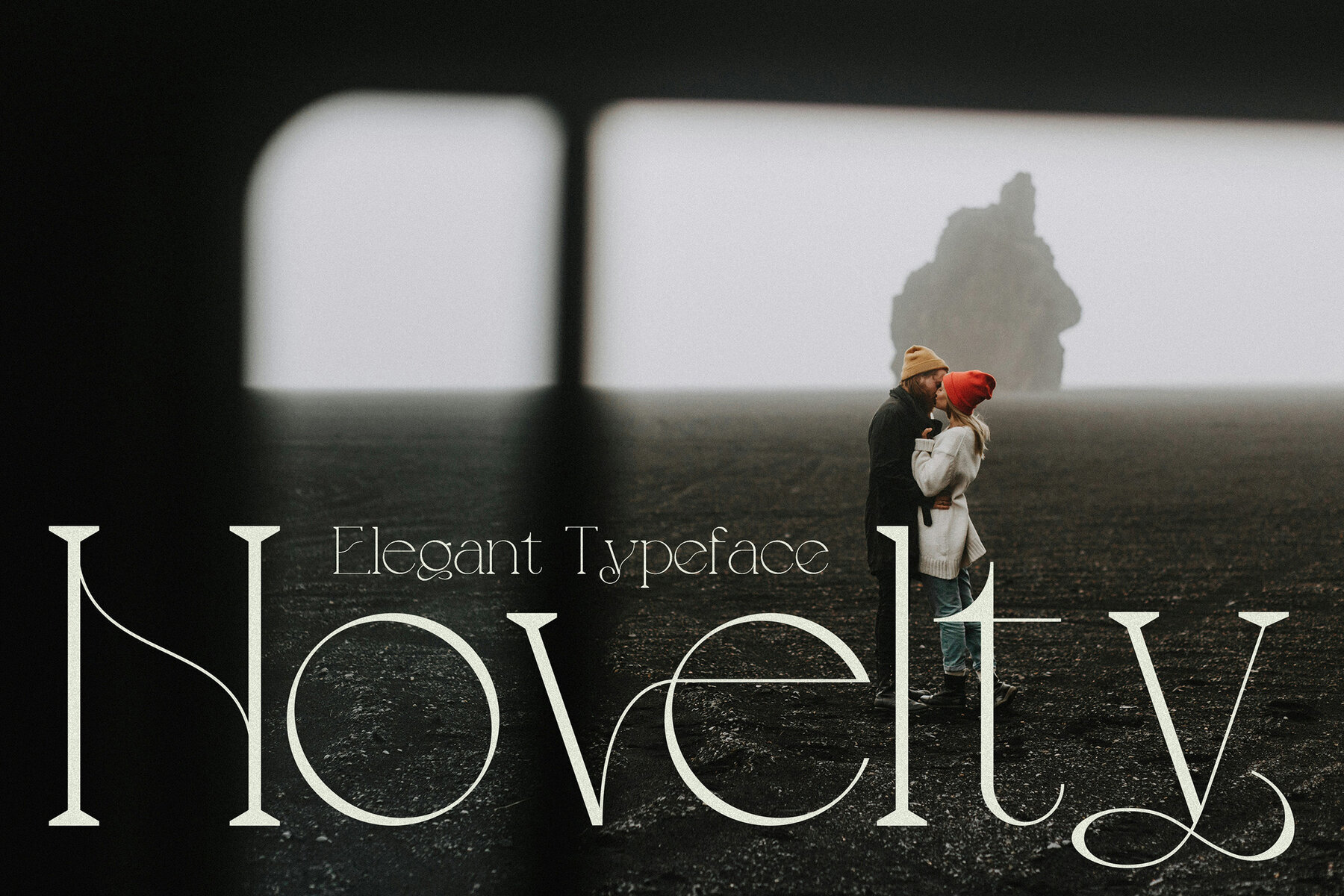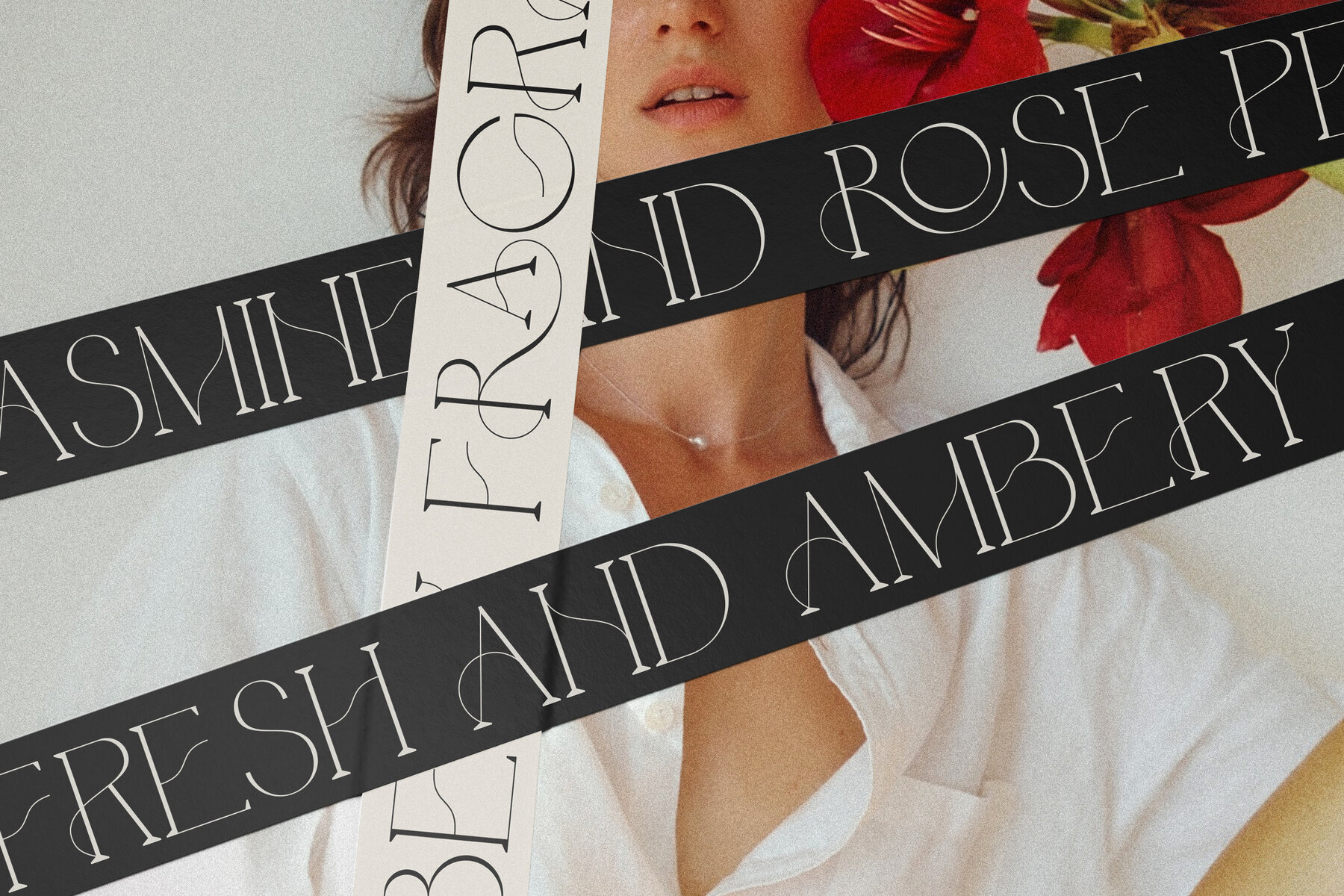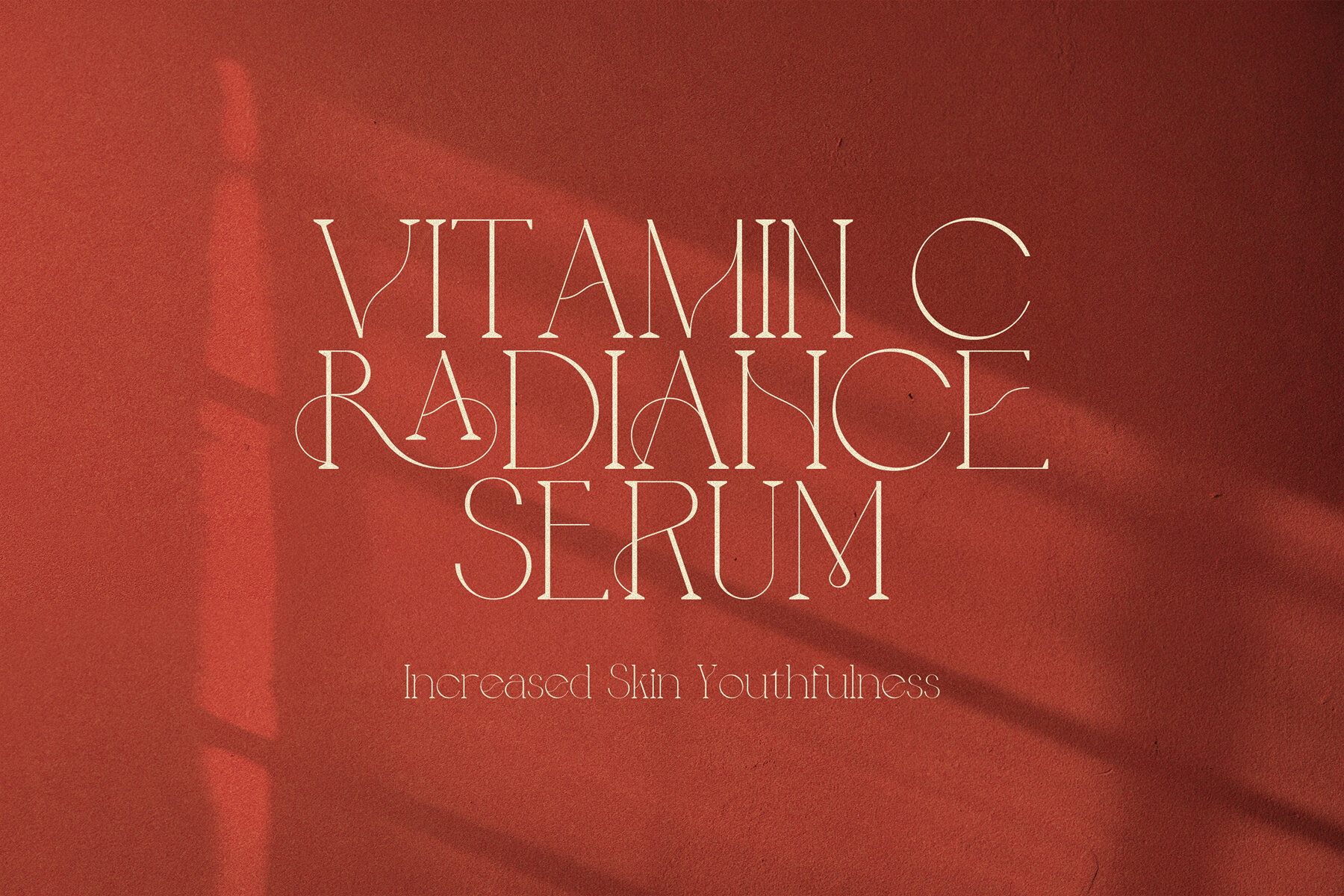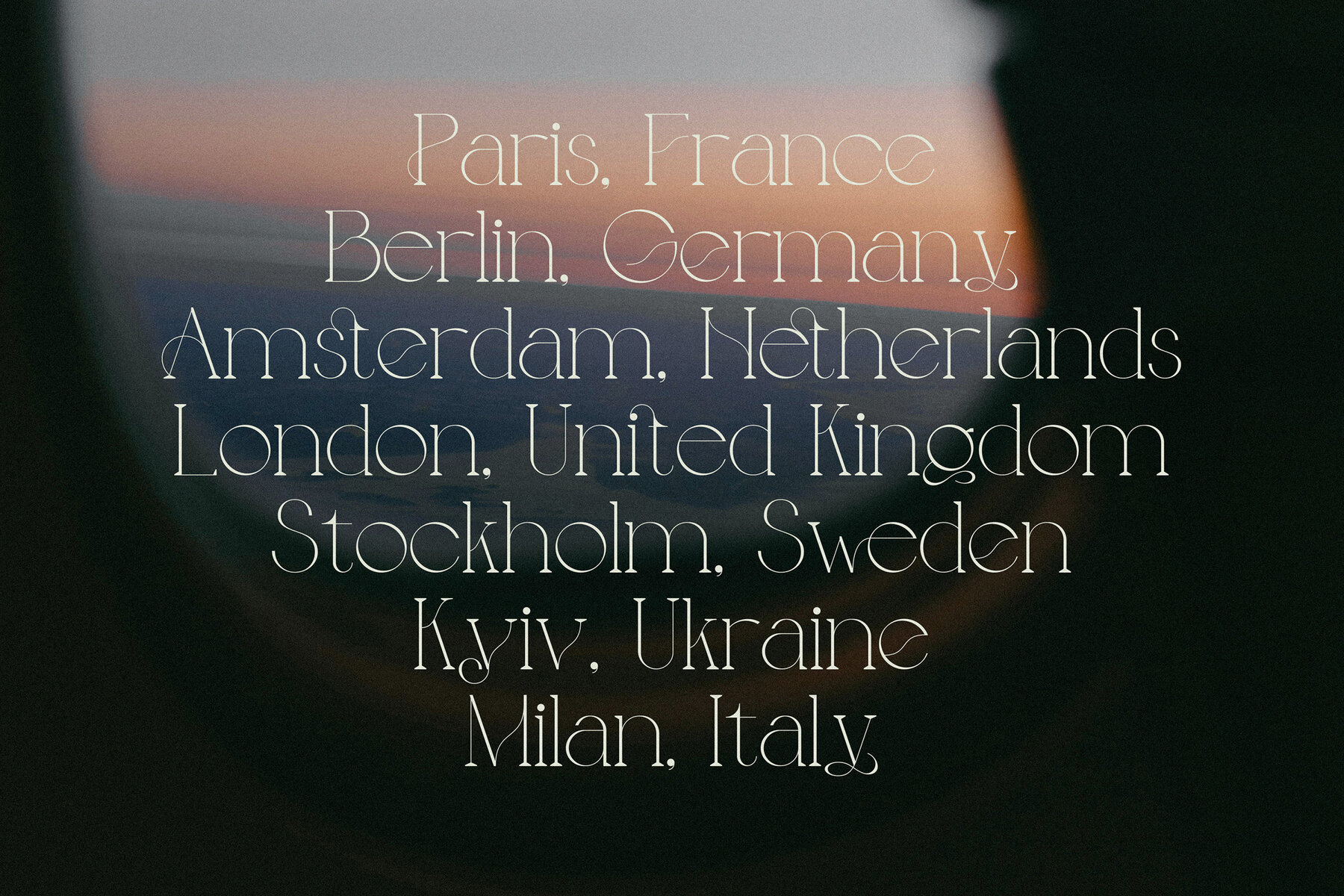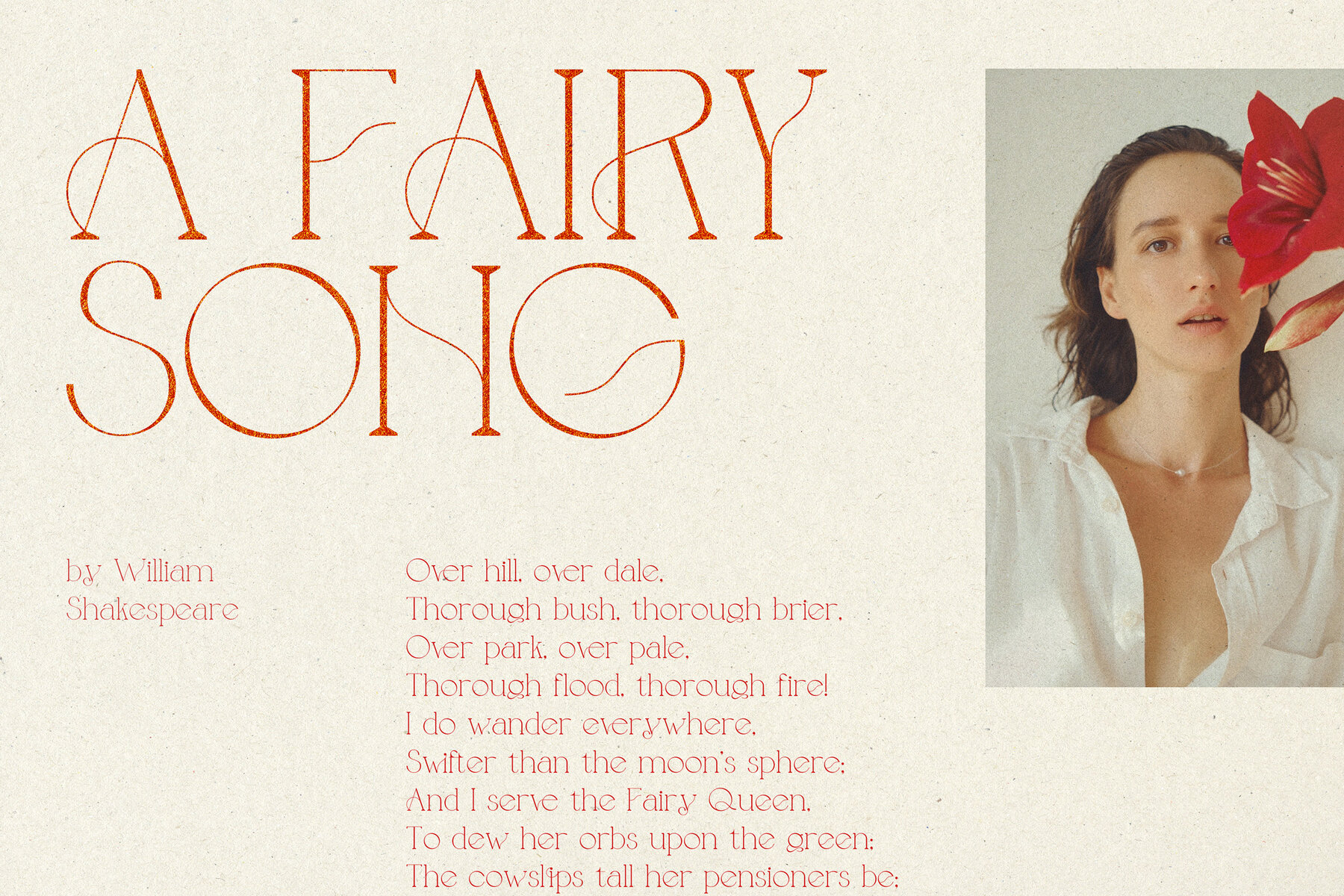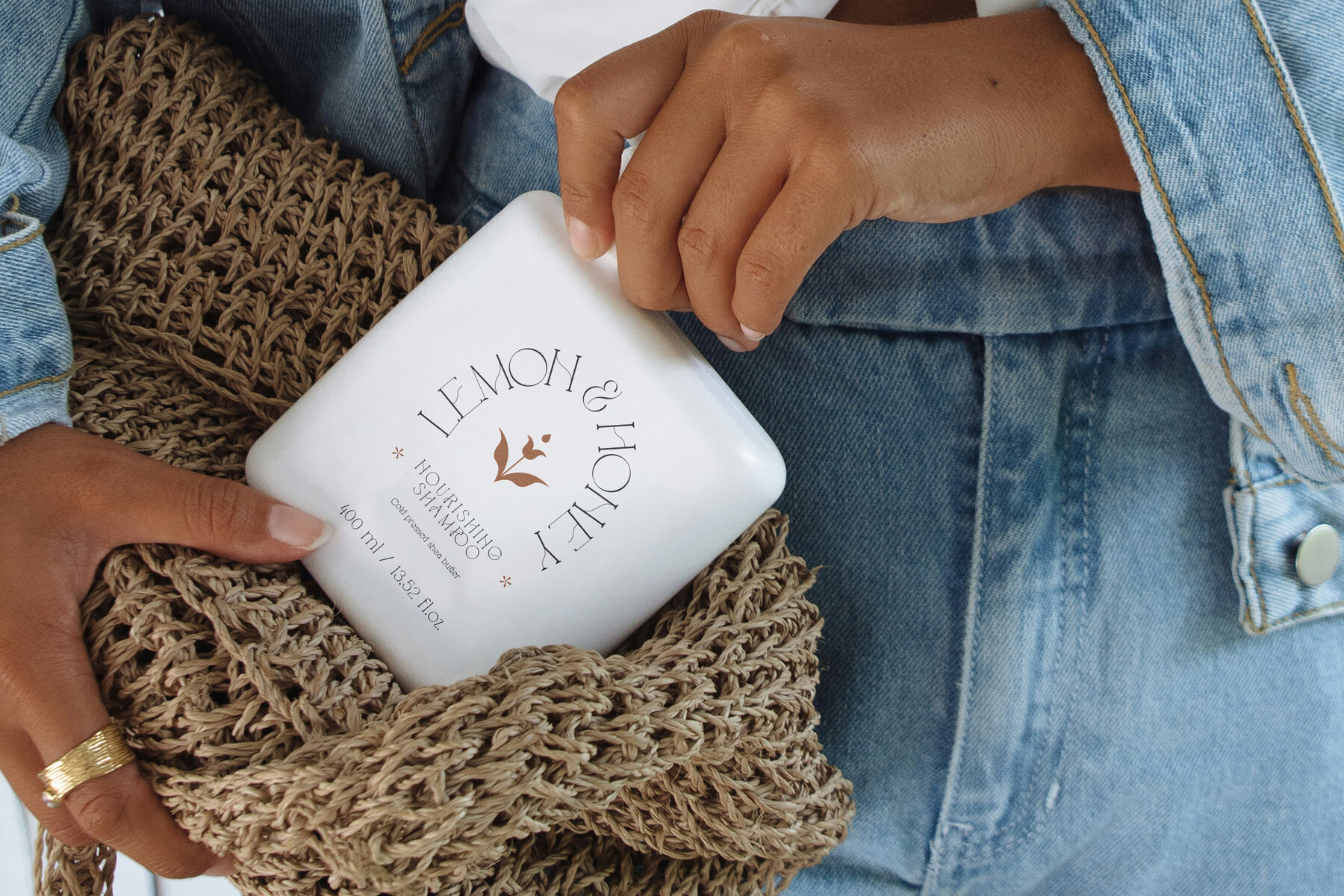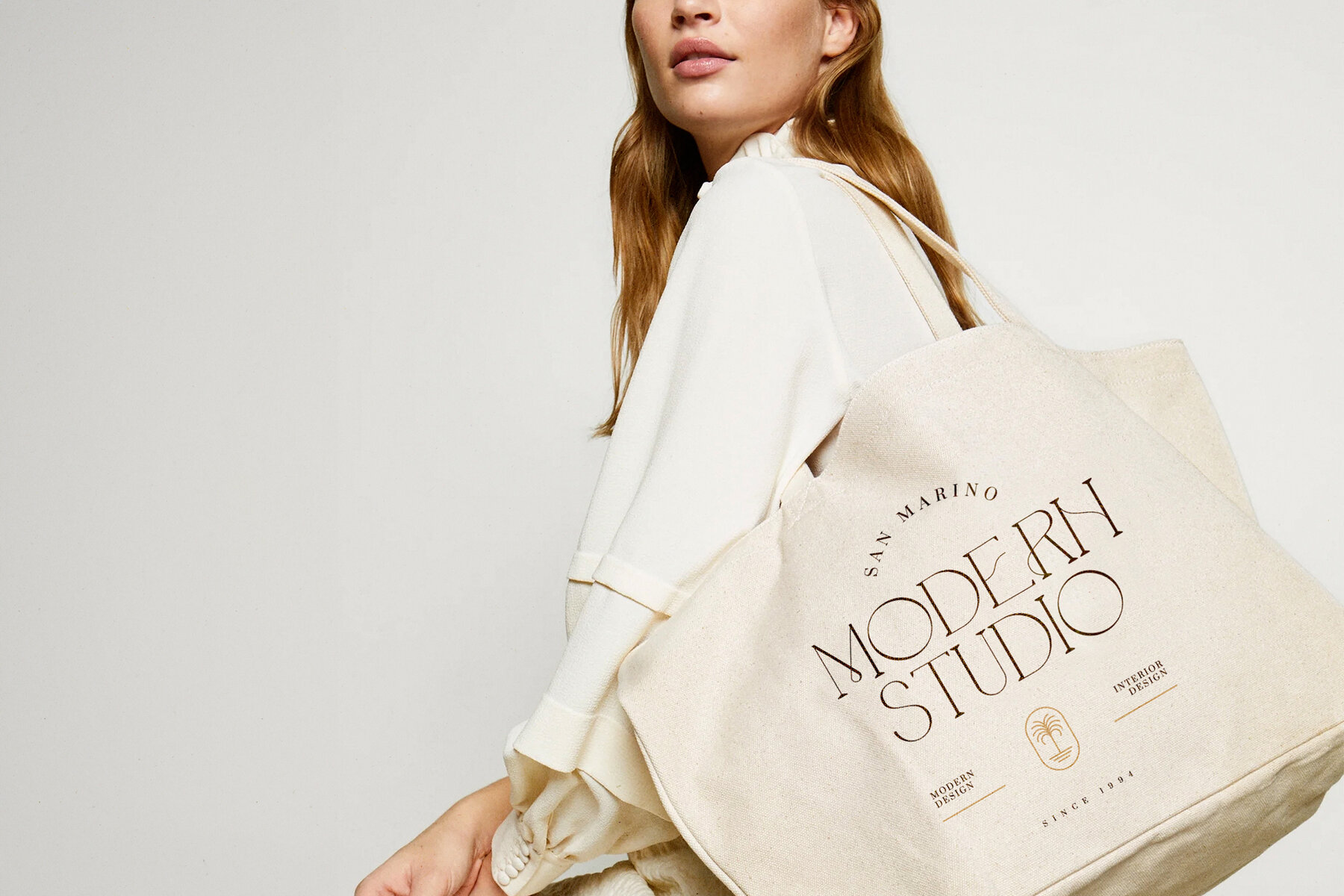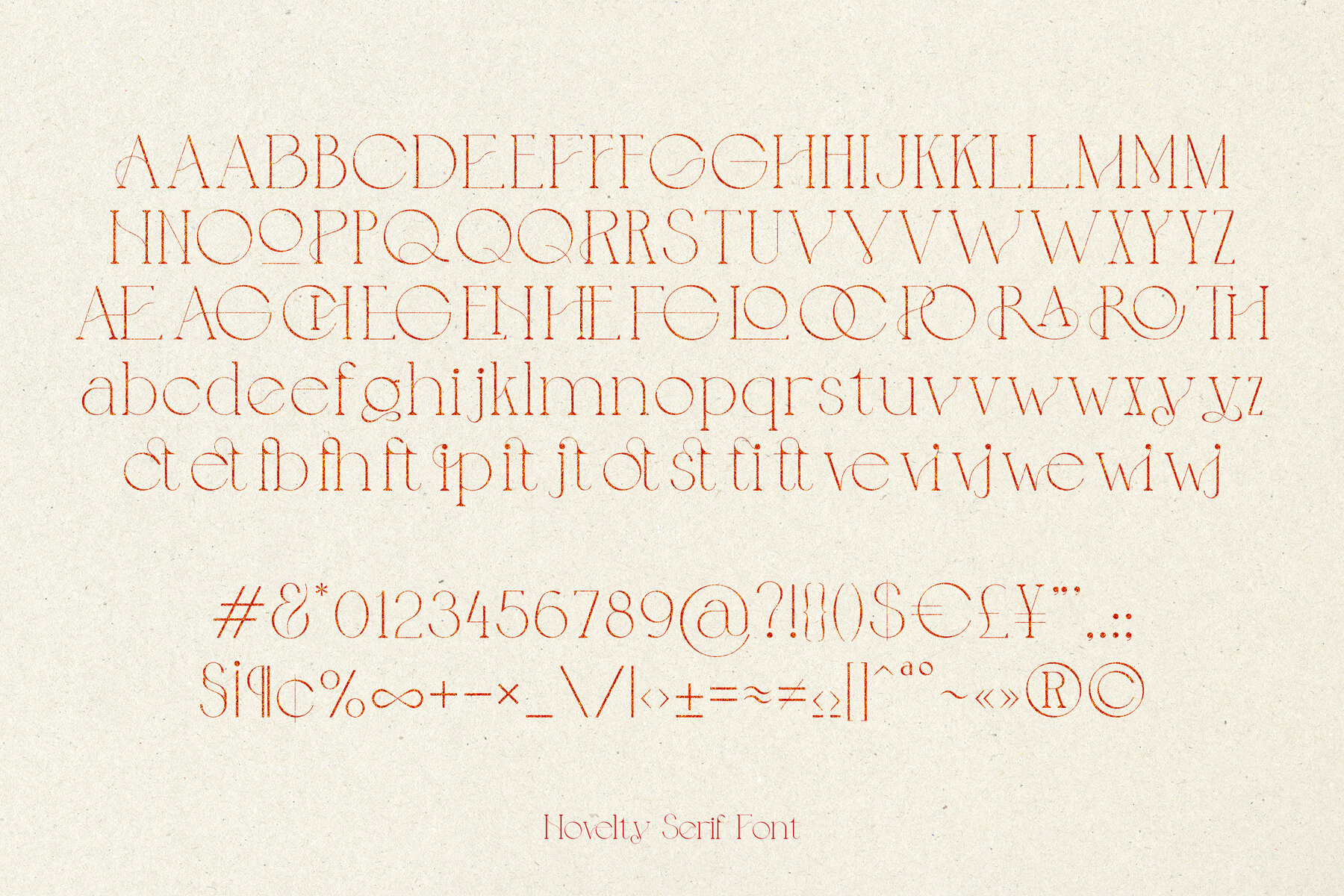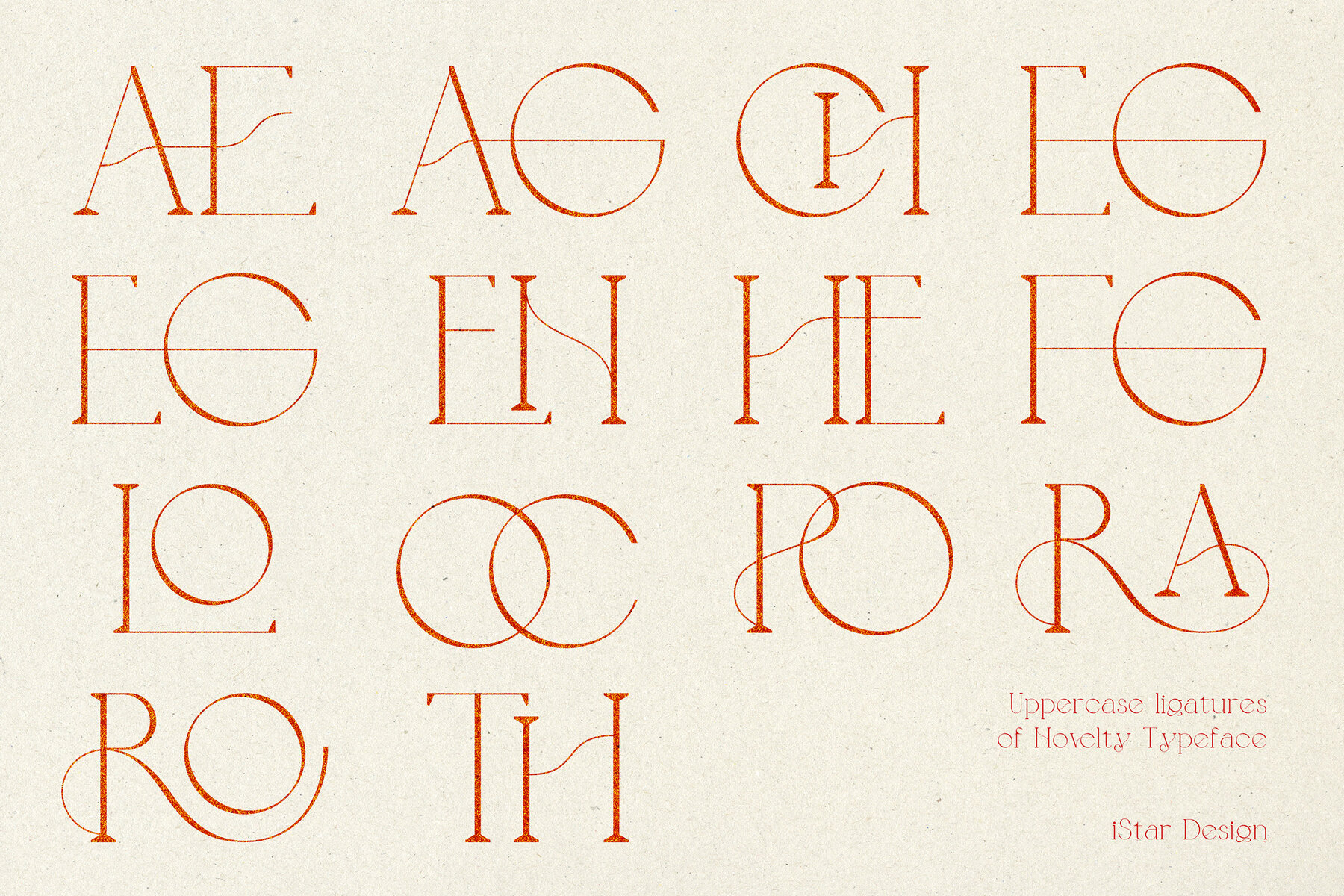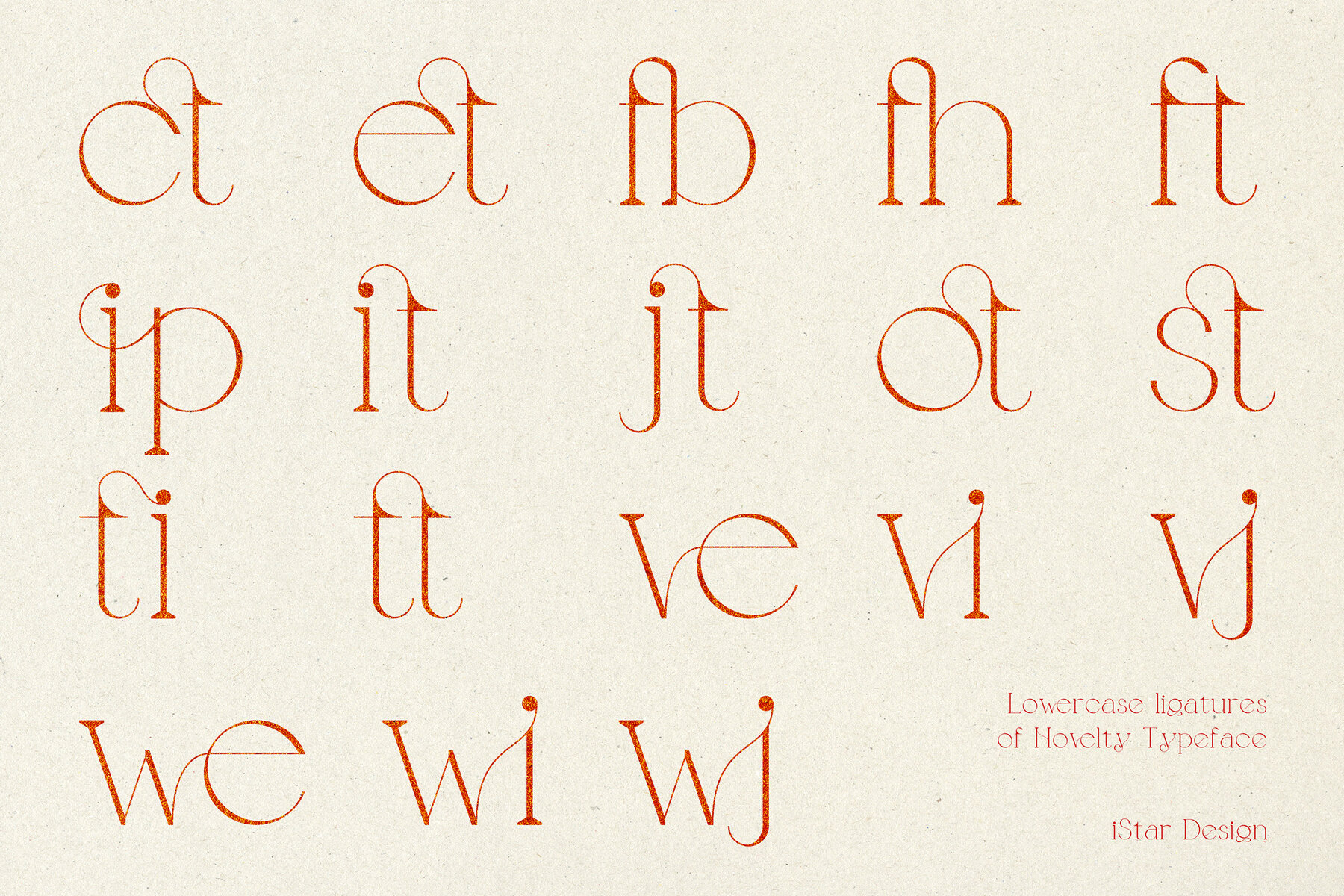
Novelty Font
Novelty Regular
The Novelty typeface exudes a modern and elegant aesthetic. Featuring opentype ligature integration, each letter flows effortlessly, enhancing its inherent charm for design projects. As retro aesthetics experience a revival, the Novelty typeface is an ideal choice to bring a clean and elegant vibe to your logo design, brand identity, professional presentations, or other creative endeavors. Note: Mock-ups are only for presentation purposes and are not included in the purchase. All pictures shown are for illustration purposes only.Novelty Typeface: Modern Elegance with Retro Charm